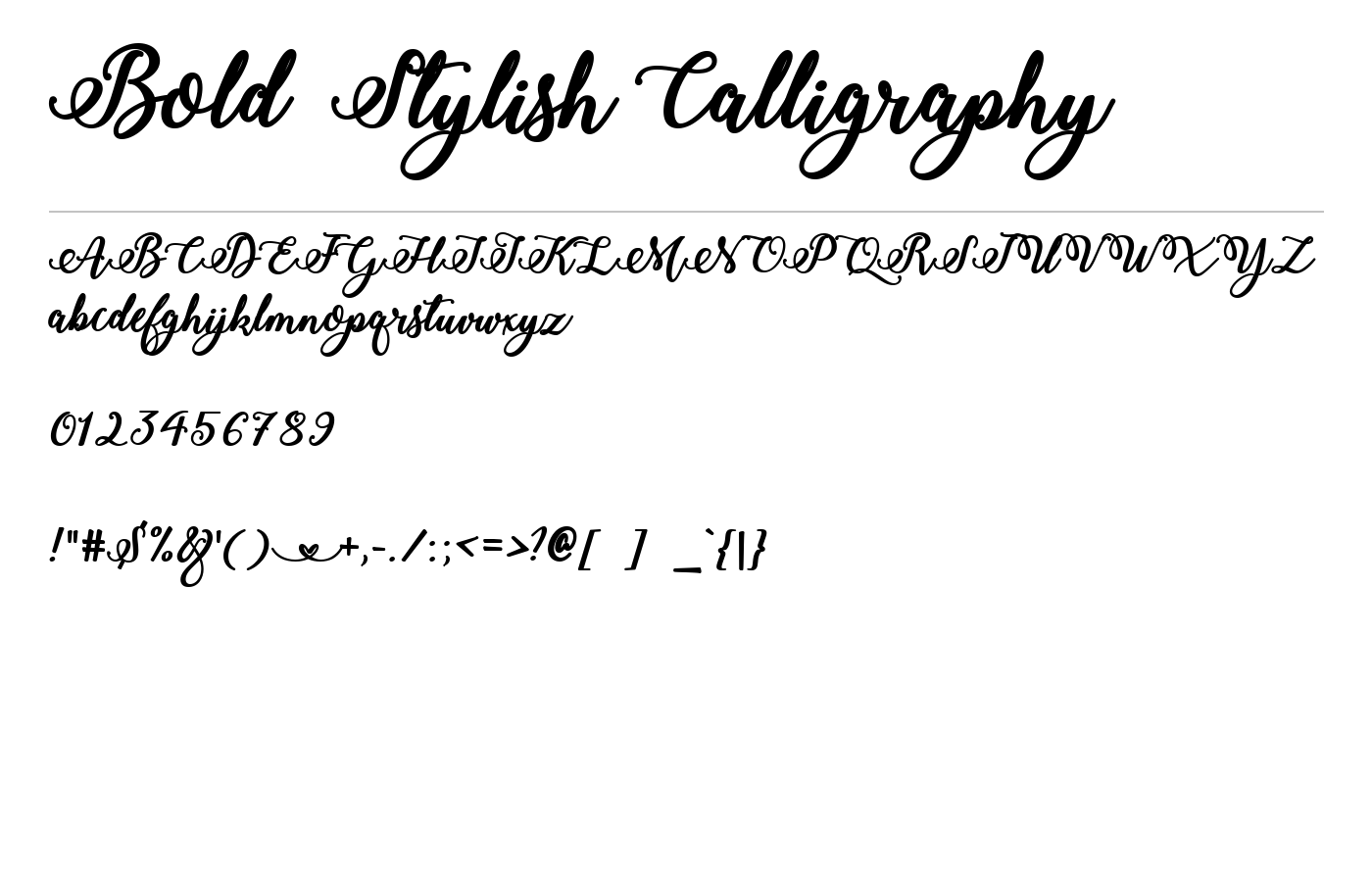
Bold Stylish Calligraphy is a flowing, elegant script font characterized by its bold weight and smooth, connected strokes that evoke a sense of sophistication and charm. Its playful yet stylish letterforms make it perfect for invitations, branding, and decorative headlines where a personal, handcrafted feel is desired. This font shines in creative projects that need a blend of bold presence and graceful, artistic flair.
Bold Stylish Calligraphy Font
About Bold Stylish Calligraphy Font
| Font family | Bold Stylish Calligraphy Font |
| Designer | Misti's Fonts |